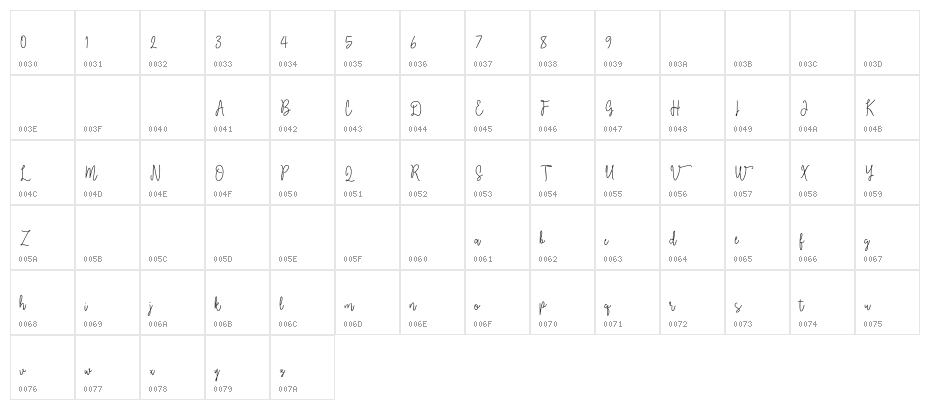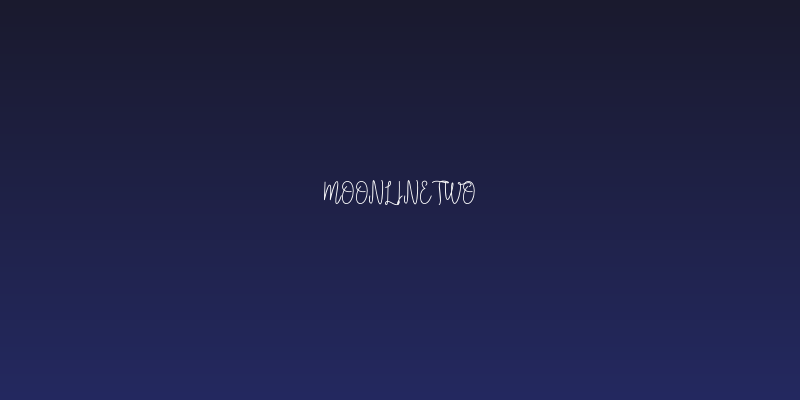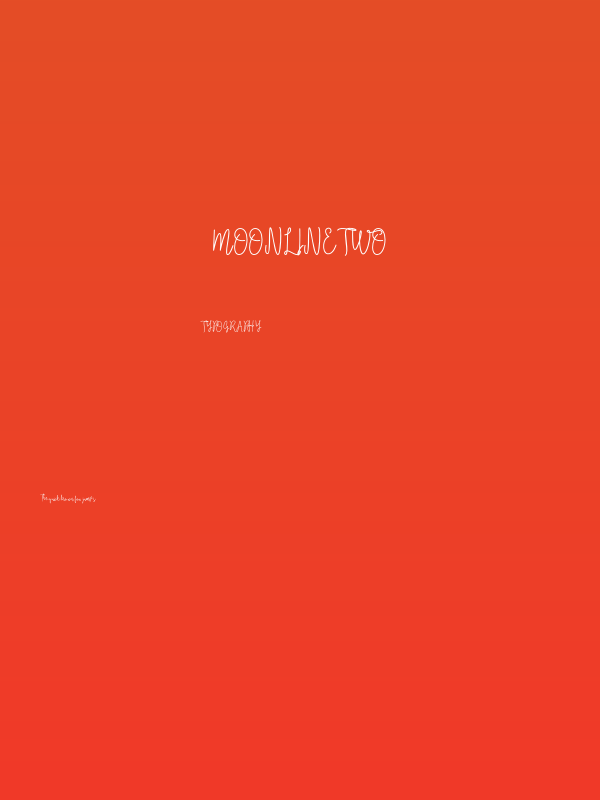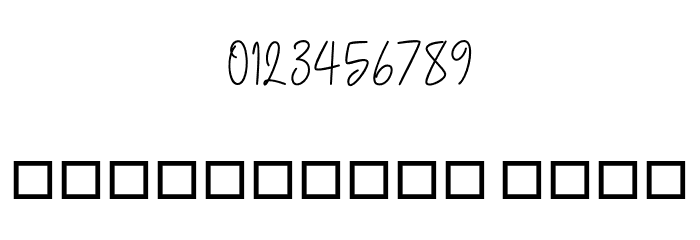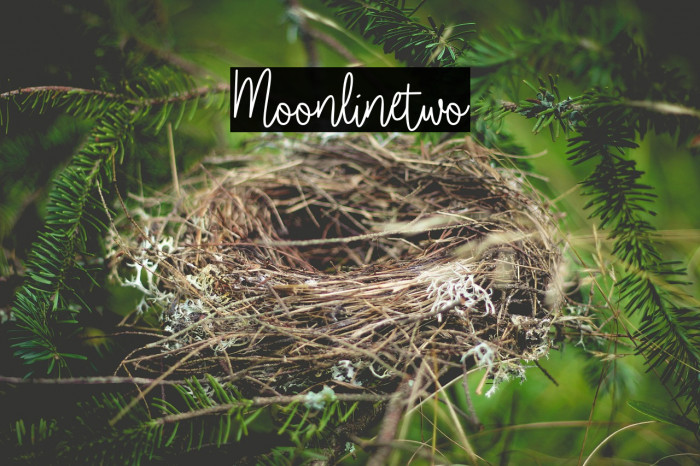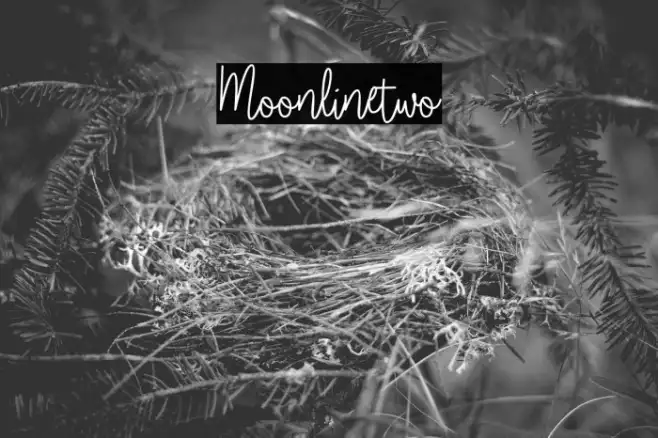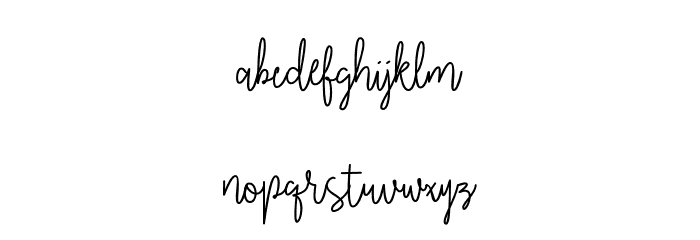
Moonlinetwo Font
Moonlinetwo Description
This font features a delicate and flowing script style, characterized by its elegant and cursive letterforms. The uppercase letters are tall and slightly narrow, with graceful loops and curves that give a sense of fluidity and movement. The lowercase letters maintain a consistent style, with smooth connections between strokes, enhancing the handwritten appearance. The numbers are similarly styled, with a slight slant and rounded edges that complement the overall aesthetic. The font's thin strokes and consistent line weight contribute to its refined and sophisticated look, making it suitable for projects that require a touch of elegance and personal flair.
| Use Case | Logos, Invitations, Personal branding |
| Proposed Projects | Ideal for wedding invitations, greeting cards, personal branding, and elegant logos. |